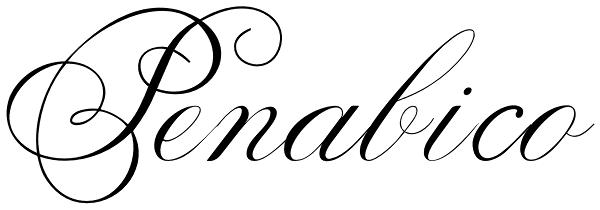
Penabico
After 13 months of hard work, Iza W and Intellecta Design are proud to announce Penabico. This is a free interpretation of the copperplate script styles to be found in the Universal Penman. London, 1741, the monumental publication of engraved work...